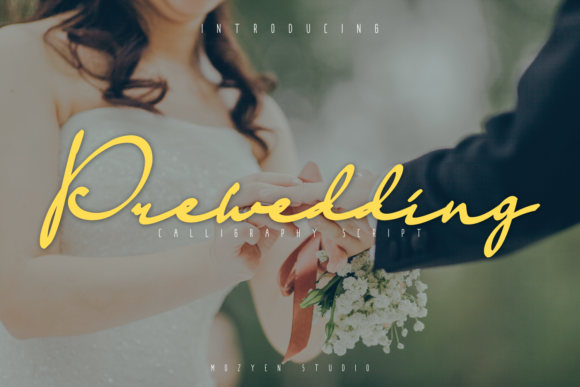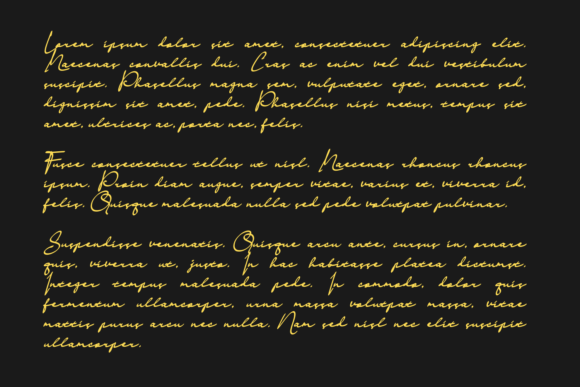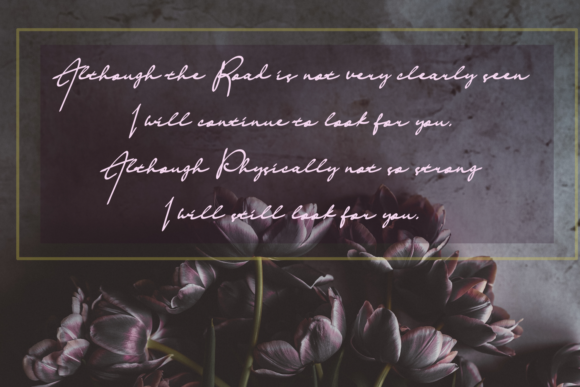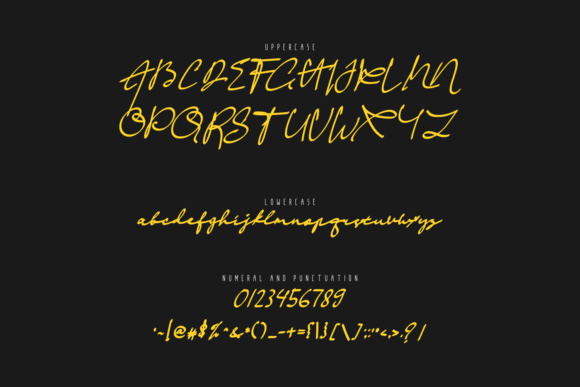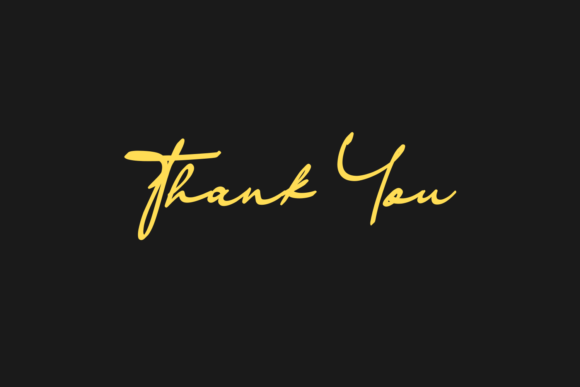
Prewedding Font
About Prewedding Font
Prewedding embodies fun, quirkiness and authenticity. This enchanting handwritten font will turn any creative idea into a true standout.